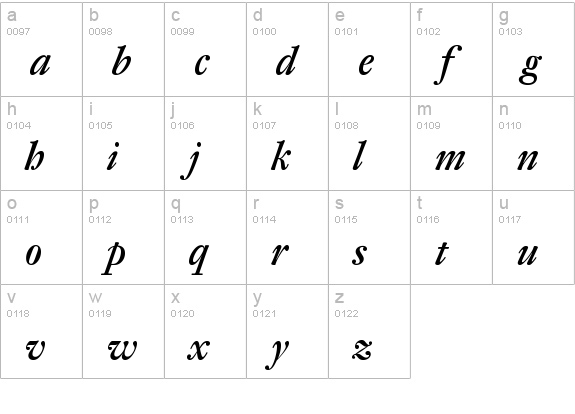
DTL Fleischmann D Medium Italic is a balanced, medium-weight, italic variant in the DTL typeface family \xE2\x80\x94 well suited to sub-headlines, navigation, and balanced editorial work.
The DTL Fleischmann D Medium Italic font is a sophisticated and elegant typeface that exudes a sense of modernity and professionalism. Its sleek lines and subtle curves make it ideal for a wide range of design projects, from editorial layouts to branding materials. The medium weight and italic styling give this font a dynamic and engaging appearance, perfect for catching the eye and drawing the reader in. What's even better is that this font is available for free download at FontsMarket.com. Whether you're a designer looking to add a touch of class to your projects or a business owner seeking a font that conveys sophistication and style, the DTL Fleischmann D Medium Italic font is sure to impress. Don't miss out on this opportunity to enhance your designs with this stunning typeface – download it today and elevate your work to the next level.